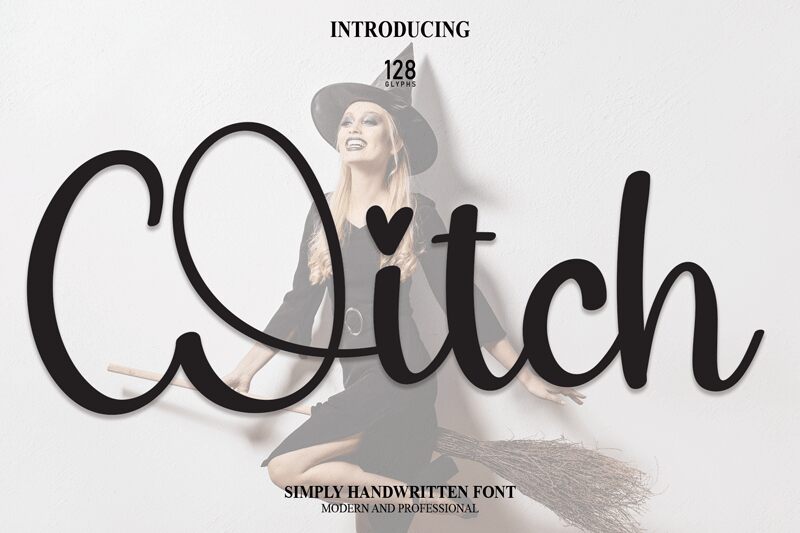
Witch
Witch, a mesmerizing calligraphy font by scratchones, adds an elegant touch to any project. Its semi-light weight effortlessly enhances wedding invitations, creating a whimsical and romantic atmosphere. The graceful curves and intricate details of Witch are perfect for fashion magazines, giving headlines a stylish flair. When used in logo designs, this enchanting font captivates viewers and conveys a sense of sophistication. With its versatile appeal, Witch is also suitable for blog headers and social media graphics, adding a touch of beauty to every post. Unleash the magic of Witch font in your creative endeavors!
The latest style letters are perfect for wall displays, wedding invitations, social media post logos, advertisements, product packaging, product designs, labels, photography, watermarks, invitations, stationery, and any project that requires taste handwriting.